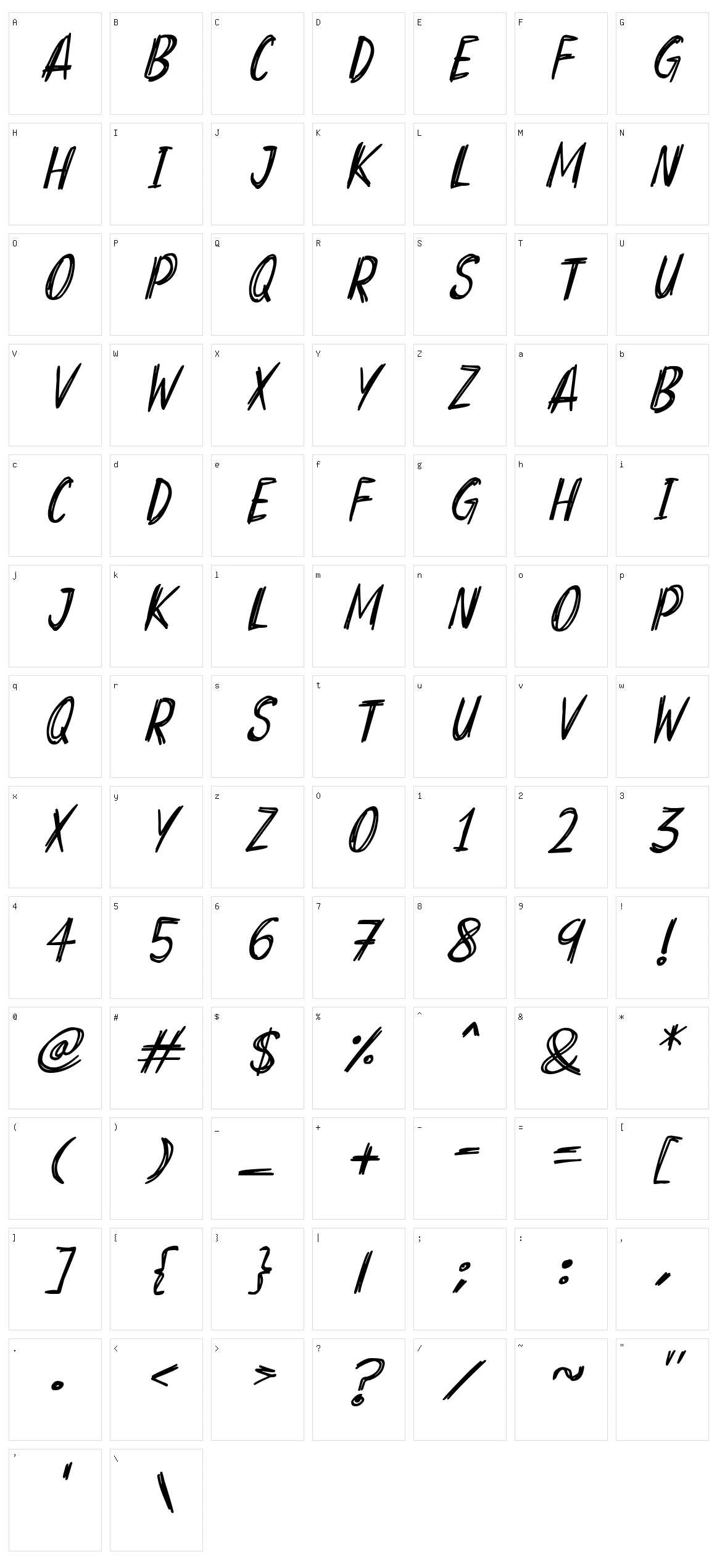
The free font Super scratchy is carefully designed by Hawtpixel, showcasing a thoughtful balance of creativity and usability and falls under the Trash font style. When you download the ZIP file, it contains only 163.77 KB of font files, making it lightweight and quick to download. Please review the license details below to understand permitted usage and distribution rights. If license information is not available, we recommend using this font for personal projects only or contacting the author directly for commercial usage permissions.